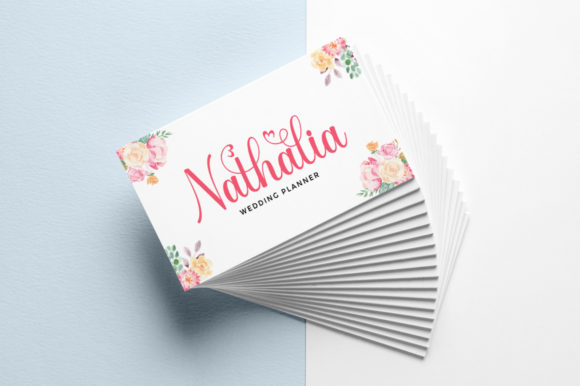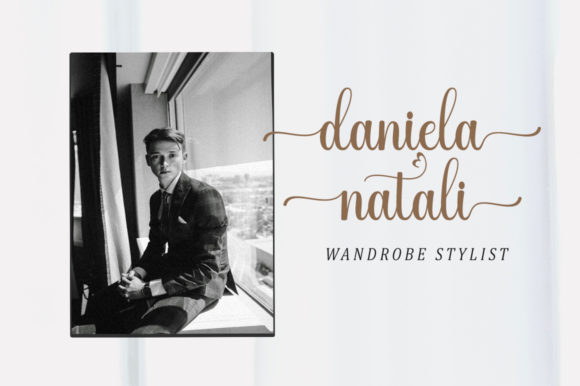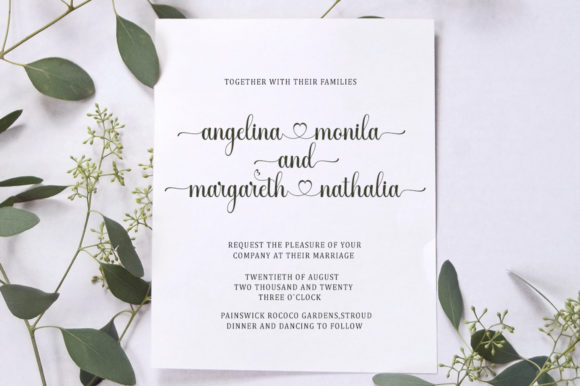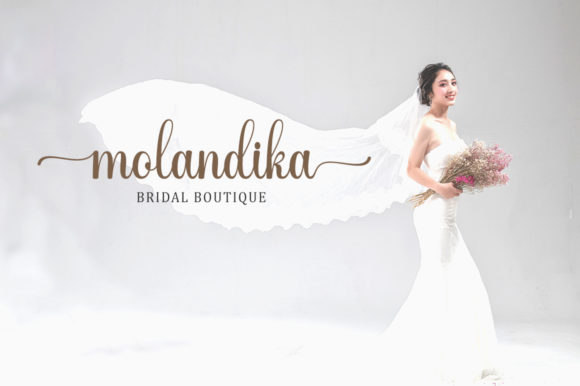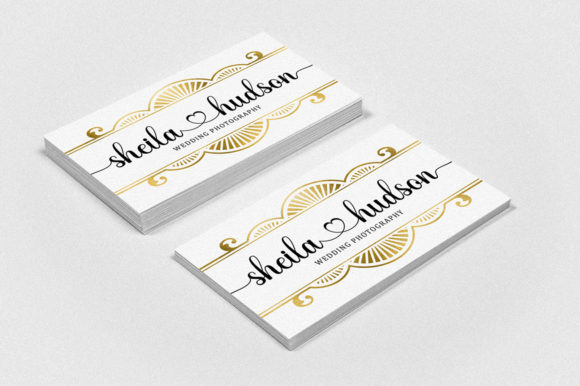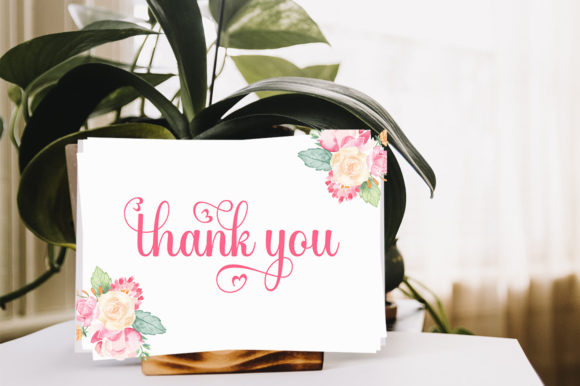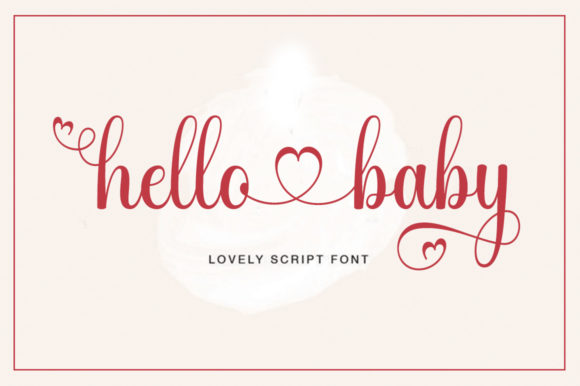
Hello Baby Font: Elevate Your Designs with Elegance and Sophistication
Are you a designer or crafter looking for a font that exudes elegance and sophistication? Look no further than the Hello Baby Font. This beautiful, handwritten font is perfect for adding a touch of refinement to any design project. In this article, we’ll take a closer look at the Hello Baby Font, its features, and how you can use it to elevate your designs.
A Font that Exudes Elegance and Flowing Script
Hello Baby Font feels incredibly elegant and flowing, making it perfect for designs that require a touch of sophistication. Its smooth lines, gorgeous glyphs, and stunning alternates make it a versatile font that can be used for a variety of design projects. Whether you’re creating wedding invitations, thank you cards, quotes, greeting cards, logos, or business cards, the Hello Baby Font is sure to impress.
Key Features of Hello Baby Font
The Hello Baby Font has several key features that make it stand out from other fonts. Some of its notable features include:
• Varying Baseline: The font features a varying baseline, which gives it a natural, handwritten look.
• Smooth Lines: The font has smooth lines that flow effortlessly, making it perfect for designs that require a touch of elegance.
• Gorgeous Glyphs: The font features a range of gorgeous glyphs that add to its beauty and versatility.
• Stunning Alternates: The font has stunning alternates that allow you to customize your designs and add a touch of uniqueness.
Perfect for Wedding and Stationery Designs
The Hello Baby Font is perfect for wedding and stationery designs. Its elegant and flowing script makes it ideal for:
• Wedding Invitations: Create beautiful and elegant wedding invitations that set the tone for the big day.
• Thank You Cards: Express your gratitude with stylish and sophisticated thank you cards.
• Greeting Cards: Create stunning greeting cards for special occasions such as birthdays, anniversaries, and holidays.
Ideal for Logos and Business Cards
The Hello Baby Font is not just limited to wedding and stationery designs. It’s also perfect for logos and business cards. Its elegant and sophisticated script makes it ideal for:
• Logos: Create a stunning logo that reflects your brand’s personality and style.
• Business Cards: Elevate your business cards with a touch of elegance and sophistication.
Font Name Hello Baby Font
Author LetterFreshStudio
The Hello Baby Font is a beautiful and elegant font that’s perfect for designers and crafters looking to add a touch of sophistication to their designs. Its smooth lines, gorgeous glyphs, and stunning alternates make it a versatile font that can be used for a variety of design projects. Whether you’re creating wedding invitations, logos, or business cards, the Hello Baby Font is sure to impress.